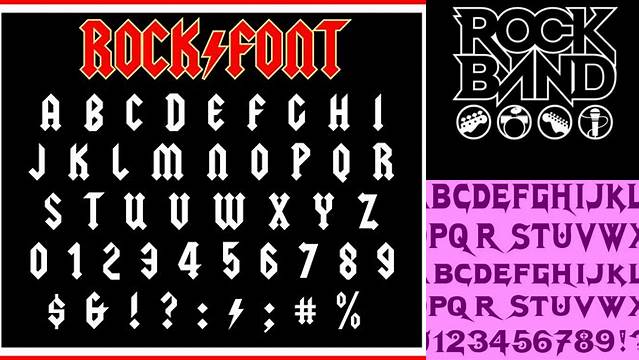
Fonts Bands Use: Typography In Music Branding
Typography, often an unsung hero in the world of music, plays a crucial role in shaping a band's identity and visual appeal. The fonts bands use are more than just letters on an album cover or a website; they are a visual extension of their music, conveying the band's genre, style, and overall aesthetic. From the gritty, hand-drawn fonts favored by punk rock bands to the sleek, modern typefaces embraced by electronic music artists, the choice of font is a deliberate decision that can significantly impact how a band is perceived. In this comprehensive exploration, we'll delve into the fascinating world of fonts in music, examining the specific typefaces that iconic bands have used, the reasons behind these choices, and the broader impact of typography on the music industry.
The Power of Typography in Branding
When we talk about branding in the music industry, it's not just about the music itself, guys. Itβs about the whole package β the album art, the merchandise, the website, and yes, the fonts! The fonts a band uses become synonymous with their identity, instantly recognizable to fans and potential listeners alike. Think about it: the jagged, aggressive lettering of a metal band logo, or the elegant, flowing script of a folk-rock group. These visual cues prime our brains even before we hear a single note.
Consider a band like Metallica. Their iconic, sharp-edged logo, often rendered in a heavy metal-esque font, instantly communicates their genre and attitude. Or take AC/DC, whose lightning bolt-adorned logo and bold typeface are instantly recognizable and scream rock and roll. These visual identities have been meticulously crafted and consistently used over decades, cementing their place in music history. The font choice helps to create a cohesive brand, making the band easily identifiable across all platforms, from album covers and concert posters to social media and merchandise. Effective typography ensures that a band's message is conveyed clearly and consistently, reinforcing their brand identity and making them more memorable to their audience. This consistency builds trust and recognition, fostering a stronger connection with fans and helping the band stand out in a crowded market. Bands invest significant time and resources into developing their visual identity, understanding that a well-chosen font can be as crucial to their success as a catchy melody or a powerful lyric. The right font can evoke emotions, convey a band's personality, and ultimately, help them connect with their audience on a deeper level.
Iconic Bands and Their Signature Fonts
Let's dive into some specific examples, shall we? Exploring the fonts used by famous bands gives us a tangible understanding of how typography shapes musical identity. The fonts bands use are more than just decorative elements; they're integral parts of their brand. Take, for example, the Sex Pistols and their use of the ransom-note style lettering. It's rebellious, chaotic, and perfectly captures their punk rock spirit. This DIY aesthetic, achieved through cut-and-paste typography, resonated with a generation of disillusioned youth and became synonymous with the punk movement. The Sex Pistols' font choice was not merely aesthetic; it was a statement, a visual rebellion against the established norms of society.
Then there's Queen, whose majestic, Art Deco-inspired logo and font evoke a sense of grandeur and theatricality. The elaborate, regal typeface complements their operatic rock sound, creating a cohesive and memorable brand. The font used by Queen reflects the band's ambition and artistry, suggesting a timeless quality and sophistication. The careful selection of this typeface has played a significant role in the band's enduring legacy, contributing to their iconic status in the history of rock music. Similarly, the Beatles, in their later years, experimented with psychedelic and ornate fonts, reflecting the experimental nature of their music during that period. The fonts used on albums like Sgt. Pepper's Lonely Hearts Club Band are as iconic as the music itself, capturing the spirit of the 1960s counterculture. These font choices demonstrate how typography can evolve alongside a band's musical style, mirroring their artistic growth and experimentation. The use of distinctive fonts helped to visually represent the band's changing sound and image, solidifying their place as innovators in both music and visual design. The fonts bands use often become a key element in their overall artistic expression, contributing to the holistic experience of their music.
Genre-Specific Font Trends
It's fascinating to see how certain genres gravitate towards specific typographic styles, isn't it? Fonts bands use often reflect the stylistic conventions of their respective genres. For instance, heavy metal bands often favor aggressive, gothic-inspired fonts, with sharp edges and bold strokes. Think of the logos of bands like Iron Maiden, Slayer, and Megadeth β their fonts are as powerful and imposing as their music. These typefaces evoke a sense of darkness, power, and rebellion, perfectly aligning with the themes and energy of heavy metal. The use of such fonts is not accidental; it's a deliberate choice to communicate the genre's identity and appeal to its target audience.
On the other hand, electronic music acts frequently opt for sleek, sans-serif fonts, conveying a sense of modernity and futurism. Daft Punk, for example, has consistently used clean, minimalist typefaces, reflecting the electronic, synthesized sounds of their music. These fonts communicate a sense of technological sophistication and innovation, aligning with the genre's forward-thinking aesthetic. The font choices in electronic music often prioritize clarity and simplicity, reflecting the genre's emphasis on precision and clean production. In contrast, punk rock bands, as we discussed earlier with the Sex Pistols, often embrace hand-drawn or distressed fonts, conveying a raw, DIY aesthetic. This typographic style reflects the genre's rebellious and anti-establishment ethos, emphasizing authenticity and a rejection of mainstream conventions. The fonts bands use in punk rock are often deliberately imperfect, mirroring the genre's emphasis on raw energy and unpolished sound. The trends in genre-specific fonts highlight how typography can serve as a visual shorthand for musical styles, helping to define and reinforce genre identities.
The Evolution of Fonts in Music
Just like music itself, typography in the music industry is constantly evolving. What was trendy in the 70s might look totally dated now, and vice versa. From the psychedelic swirls of the 60s to the grunge typography of the 90s, fonts have mirrored the changing musical landscape. The fonts bands use have evolved alongside technological advancements and cultural shifts, reflecting the ever-changing tastes and preferences of audiences. In the early days of rock and roll, hand-lettered fonts and bold, graphic typefaces were common, reflecting the raw energy and rebellious spirit of the music. As music production and graphic design became more sophisticated, fonts became more refined and experimental, with bands pushing the boundaries of typographic expression.
The digital age has brought about even more changes, with access to a vast library of fonts and the ability to create custom typefaces. This has allowed bands to experiment with even more unique and personalized fonts, further enhancing their brand identity. The rise of digital design tools has also democratized typography, making it easier for independent artists and bands to create professional-looking visuals. The fonts bands use today are incredibly diverse, ranging from classic and timeless typefaces to cutting-edge and experimental designs. This diversity reflects the wide range of musical genres and styles, as well as the increasing importance of visual branding in the music industry. As we move further into the digital age, it's likely that we'll see even more innovation in music typography, with bands continuing to push the boundaries of visual expression. The evolution of fonts in music is a testament to the dynamic relationship between visual design and musical identity, highlighting the crucial role that typography plays in shaping how we perceive and experience music.
Choosing the Right Font for Your Band
So, you're in a band and trying to figure out your visual identity? Choosing the right font for your band can feel overwhelming, but it's a crucial step in solidifying your brand. It's not just about picking something that looks cool; it's about choosing a font that truly reflects your music and your band's personality. Think about your genre. As we've discussed, different genres often have associated typographic styles. If you're a heavy metal band, a delicate script font probably isn't the best choice. Conversely, if you're a folk band, a harsh, industrial typeface might not align with your musical aesthetic.
In conclusion, the fonts bands use are a critical component of their overall brand identity. From genre-specific trends to the evolution of typography in music, the choice of font can significantly impact how a band is perceived. By understanding the power of typography and taking the time to select the right font, bands can create a visual identity that complements their music and helps them connect with their fans on a deeper level. So next time you see an album cover or a band logo, take a moment to appreciate the typography β it's telling you more than you might realize.